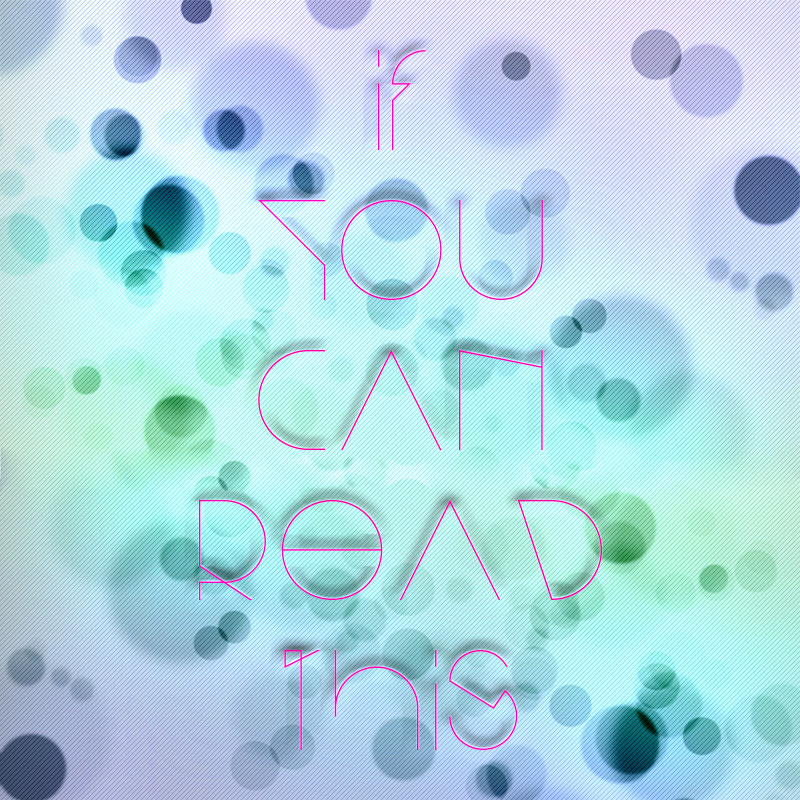
Bisurk is a free futuristic display font drawn with extremely fine strokes, very broad proportions, and an almost architectural sense of geometry. Circles meet sharp triangles and unexpected open joins.
Its clean science-fiction styling is well suited to film title cards and electronic music artwork, where the spare lines can suggest sleek machinery or imagined interfaces. Fashion branding and exhibition posters offer another convincing setting, especially when the lettering can function like a linear graphic as well as a name.